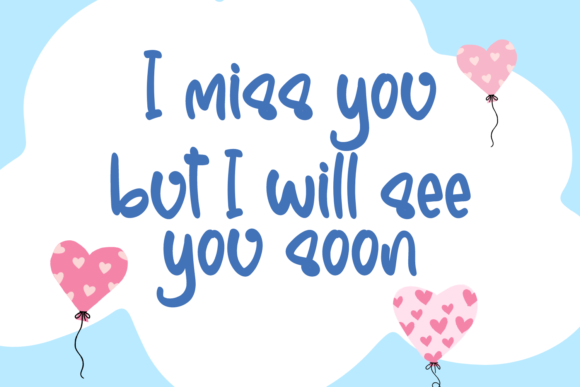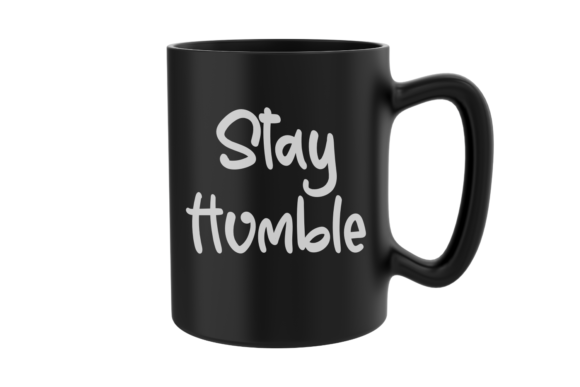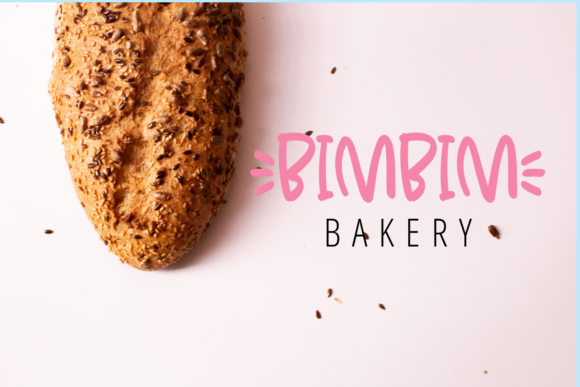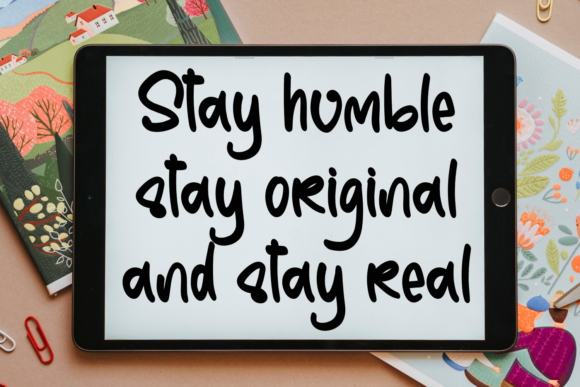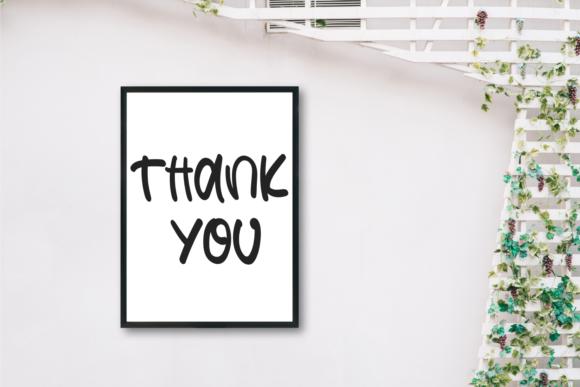
Happiness Font
About Happiness Font
Happiness is a cute handwritten font. It’s playfulnes make it great for creative project, be it inspirational wall posters or for communicating your brand.